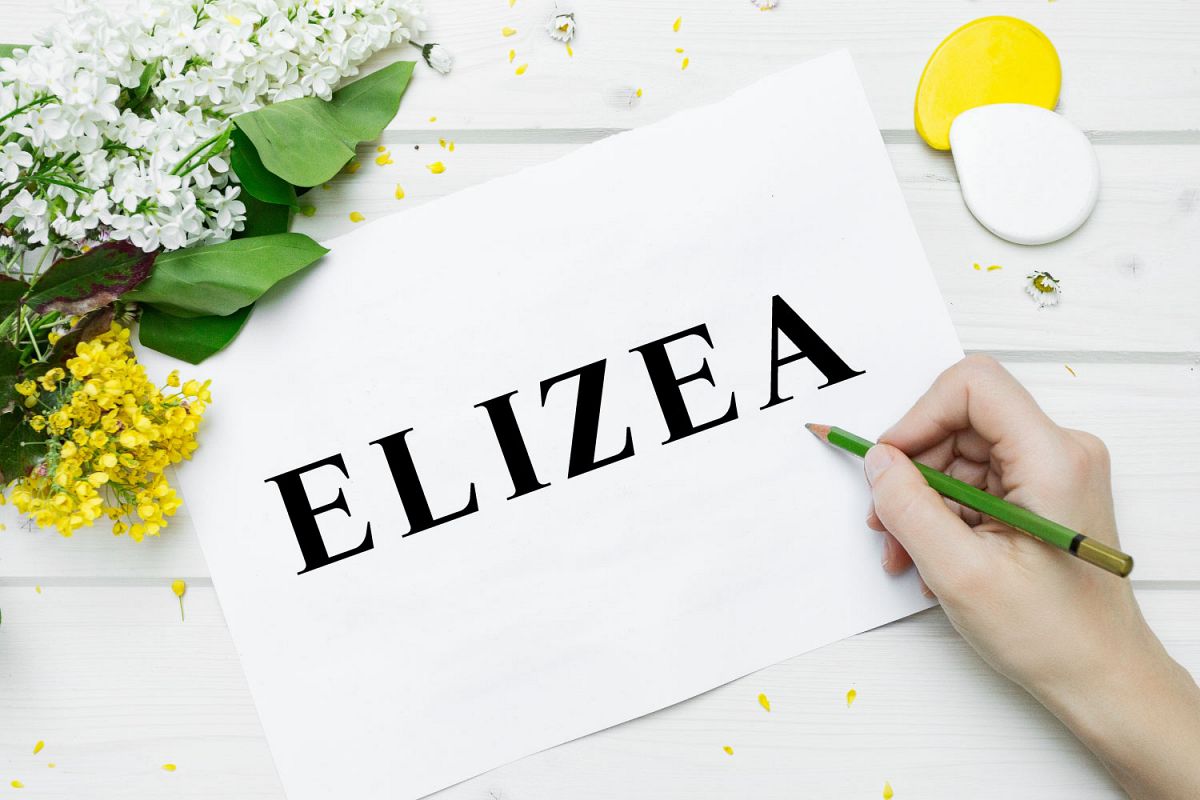
Elizea Font with 14 weights bundle
Elizea Font with 14 weights is an elegant and modern serif font.
Perfect for magazine, news papers, posters, in branding, headers, invitations and save the dates, flyers, packaging, bags and so much more.Includes support for multiple languages.